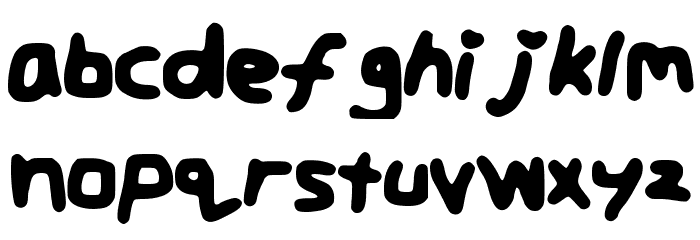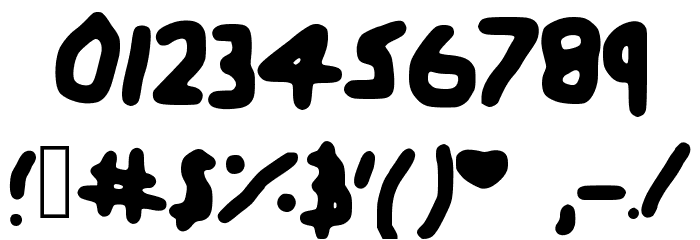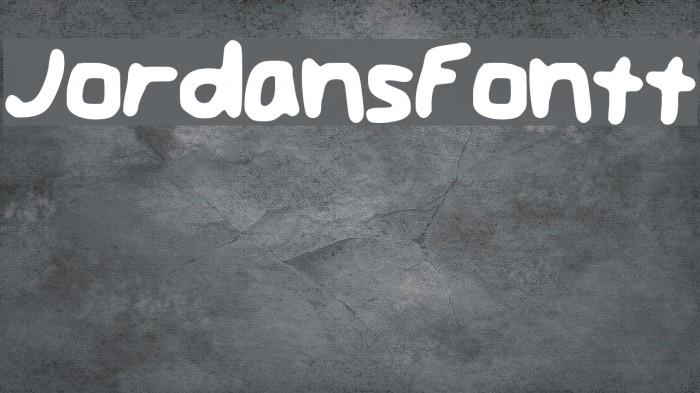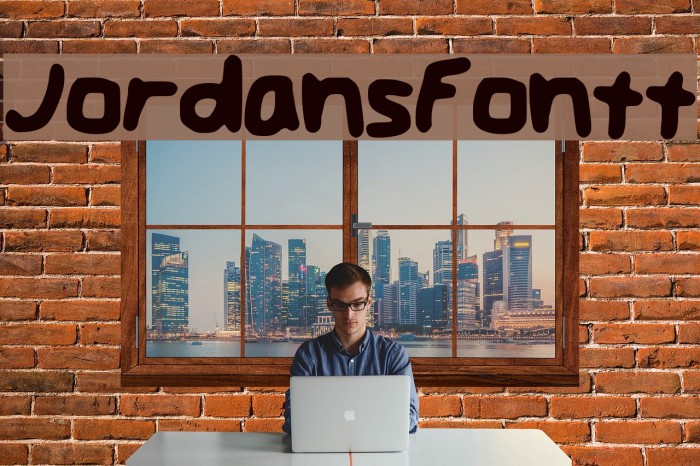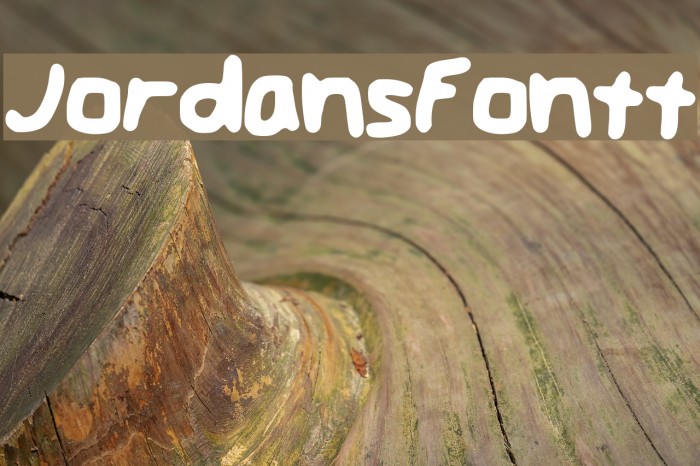
JordansFontt Font
This playful and bold font features a unique, hand-drawn style with rounded edges and a slightly irregular form, giving it a casual and friendly appearance. The characters are thick and substantial, making them highly visible and impactful. The uppercase and lowercase letters maintain a consistent style, with a whimsical touch that adds personality. The numbers and special characters follow the same design, ensuring uniformity across all elements. This font is ideal for projects that require a fun and approachable aesthetic.
A bold, hand-drawn font with a playful and casual style.
- Proposed Projects: Perfect for children's books, playful branding, posters, and social media graphics.
- Overall Style: Playful